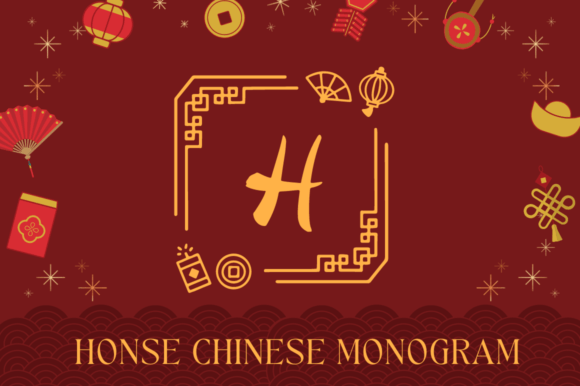
Dive into the world of Honse Chinese Monogram, an alluring font that blends tradition and beauty. Designed by the talented attypestudio, this elegant square display Chinese ornament monogram is a captivating creation that breathes life into your designs.
Honse Chinese Monogram is not just a font; it's an experience. Its intricate strokes and delicate curves evoke a sense of nostalgia and charm, transporting you to a bygone era of exquisite craftsmanship. The seamless blend of traditional Chinese elements with a modern twist makes this font a must-have for designers seeking to add a touch of cultural richness to their projects.
Unleash your creativity and explore the endless possibilities that Honse Chinese Monogram offers. Embark on a journey of cultural expression as you craft stunning designs that resonate with the beauty of Chinese heritage. Whether you're creating textiles, gifts for children, or personalized presents for loved ones, this font will elevate your creations and make them truly unforgettable.
With Honse Chinese Monogram, you'll have the power to transform ordinary designs into extraordinary masterpieces. Its versatility extends from traditional Chinese-themed projects to contemporary designs that crave a unique and sophisticated touch. Let your imagination soar and witness the transformative power of this exceptional font.